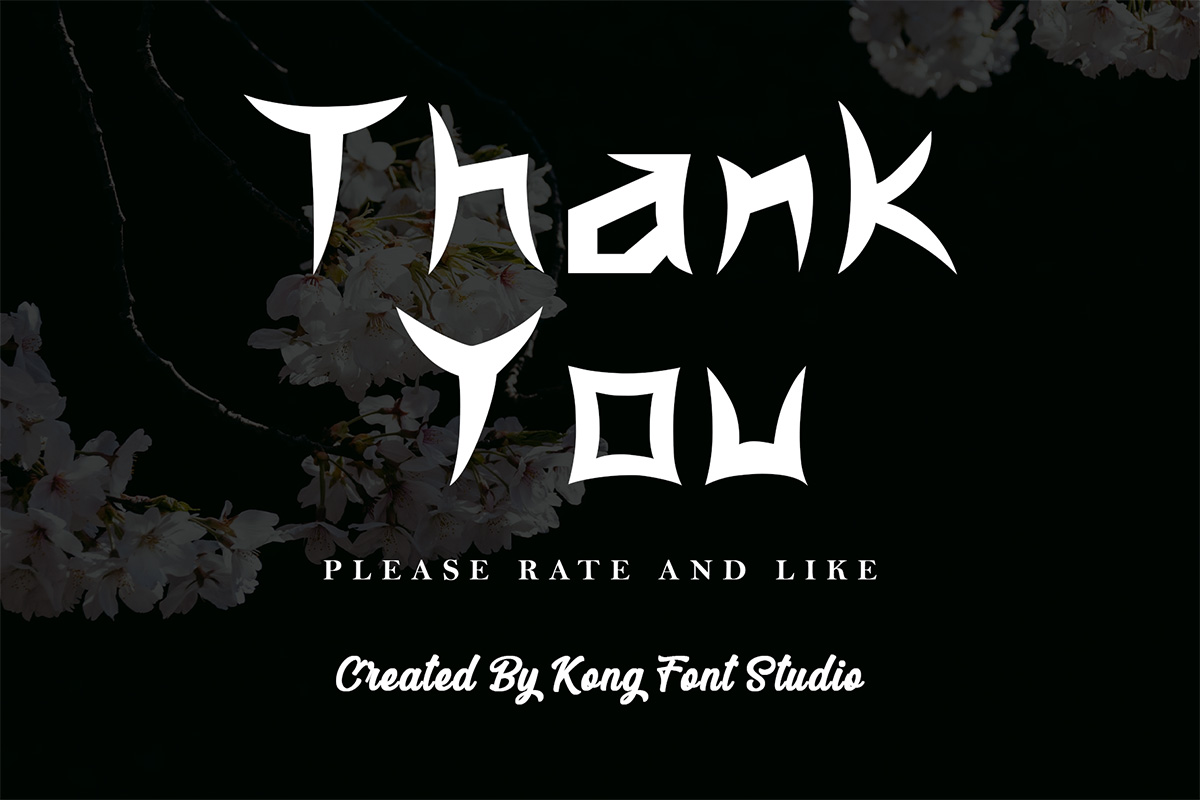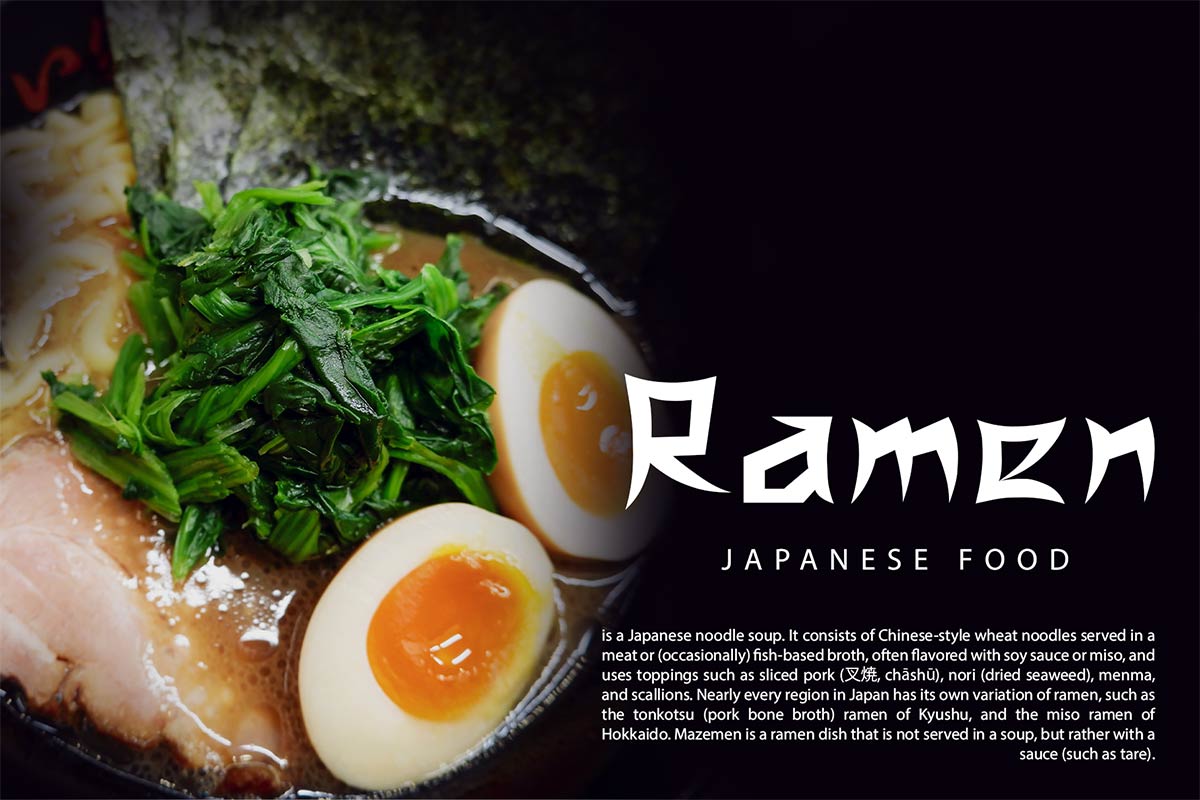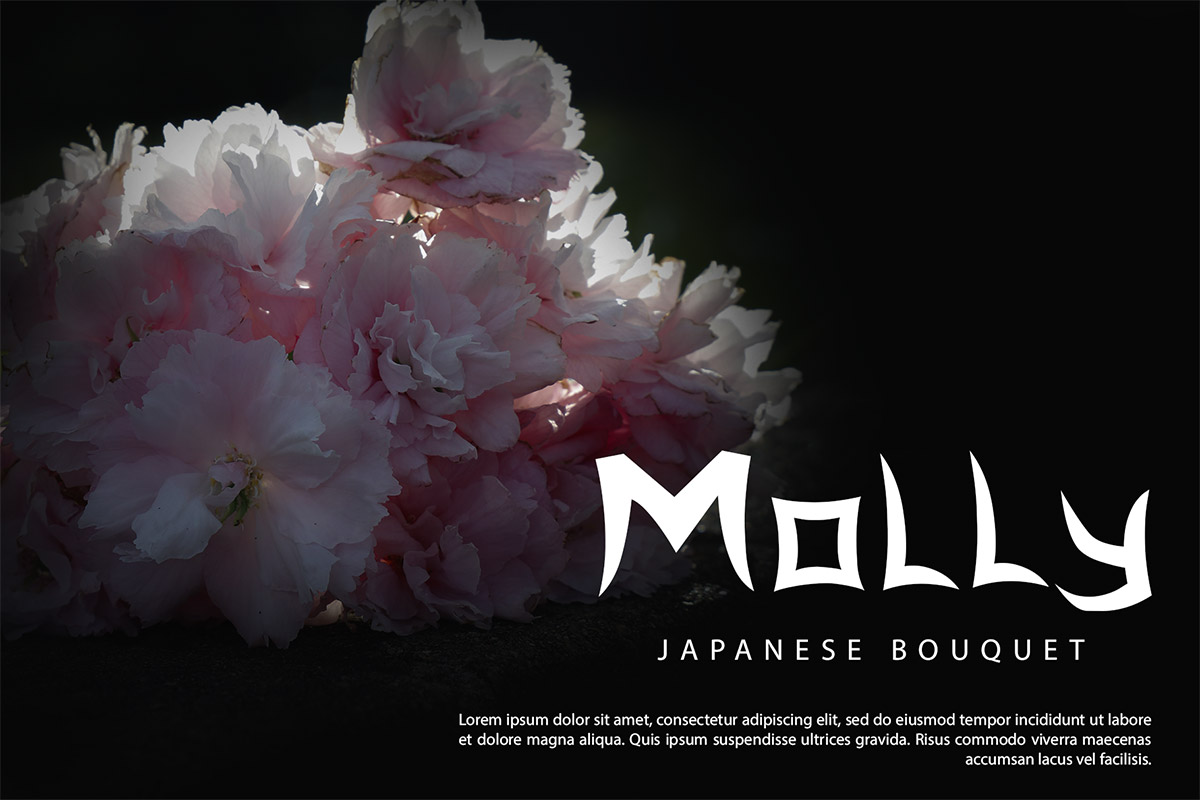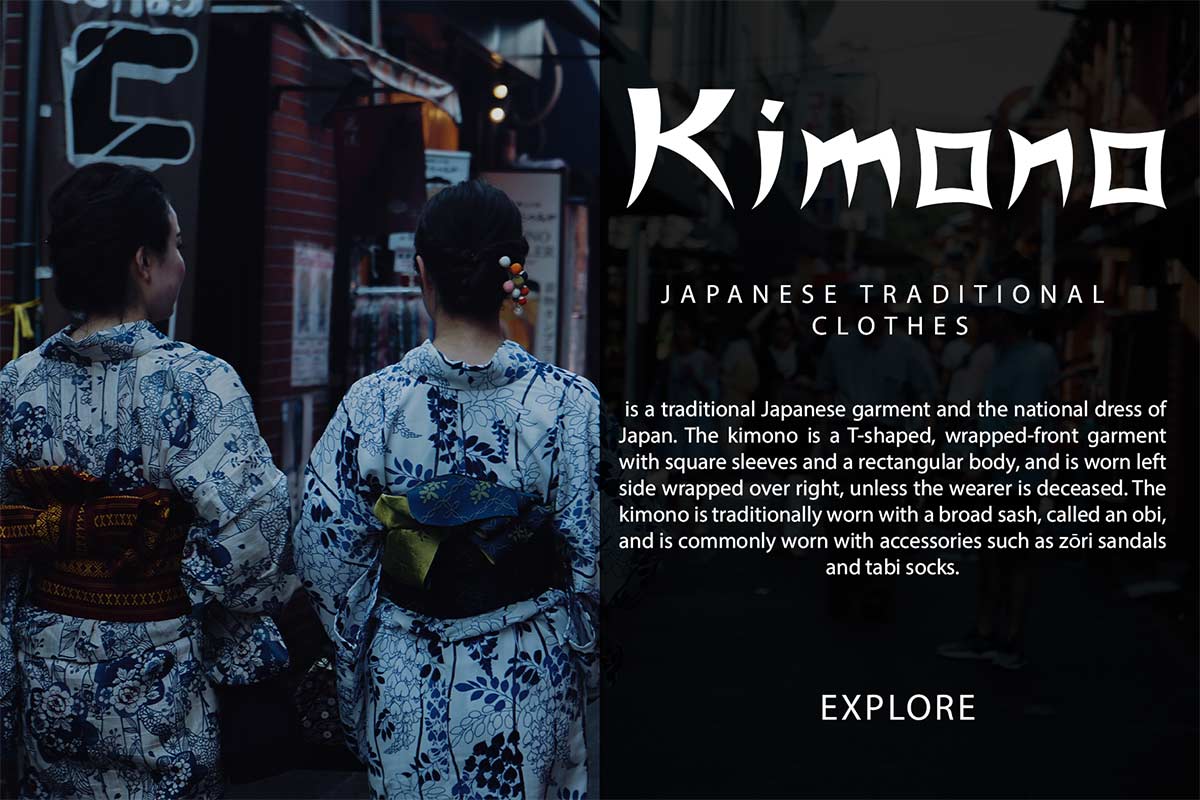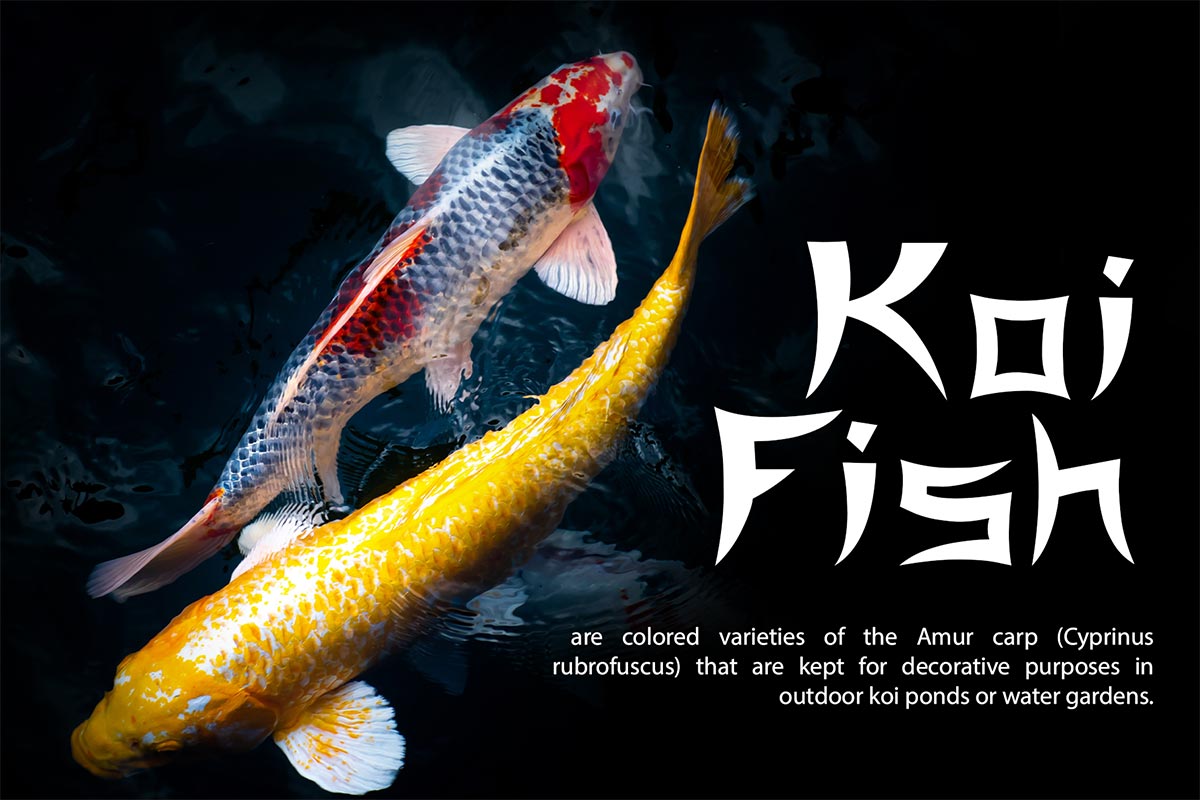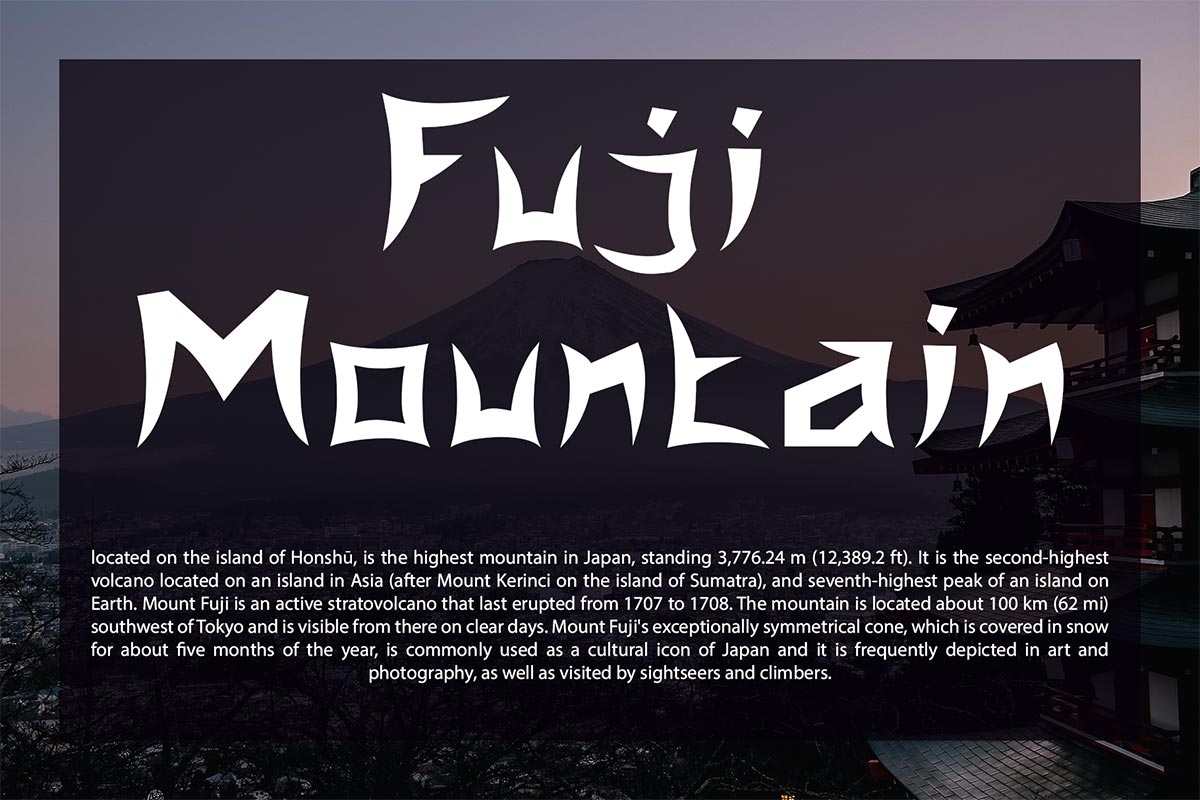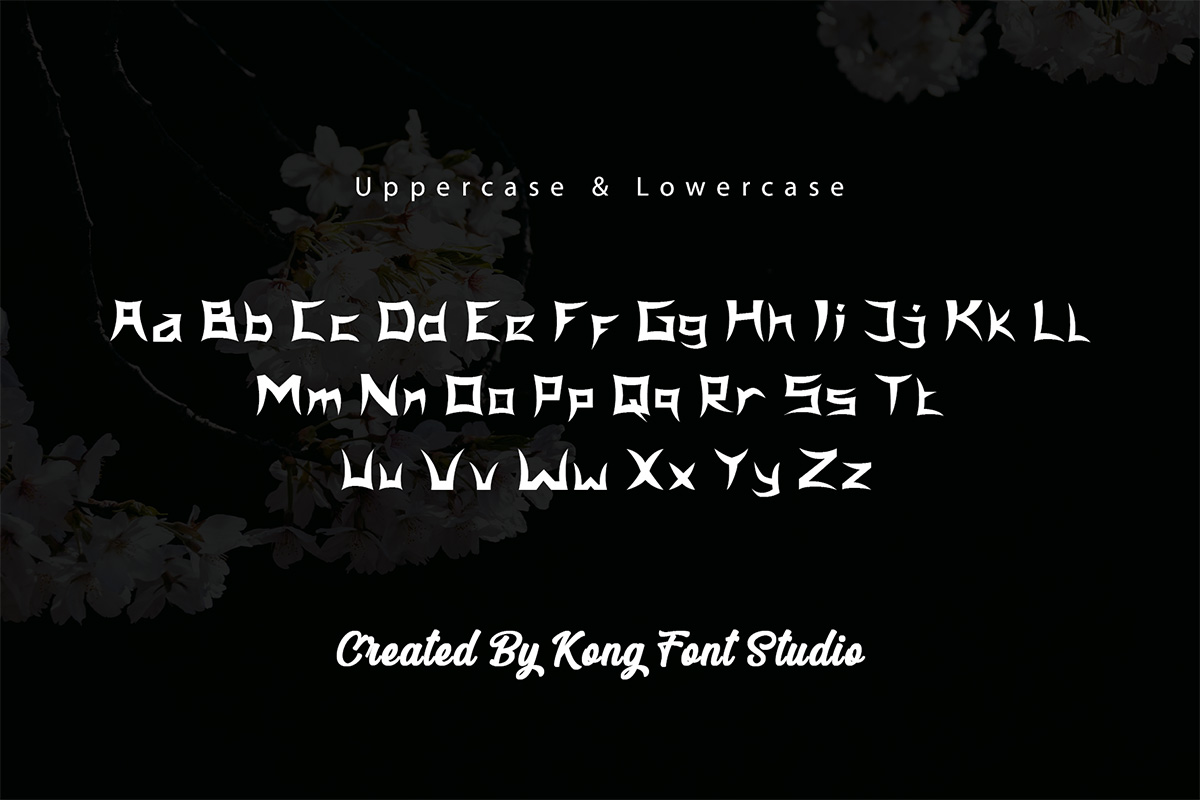
Japanola Asian Arabic Font presents a unique and attractive display of decorative typography. This is a decorative font variation that adheres closely to the Japanese feel and theme. Not only in the form of ordinary letters, but the typeface resembles the shape of actual Japanese letters. Talking about readability, the Japanola Asian Arabic Font is easy to read. You have to look at it carefully to understand it. This font was created to celebrate various celebratory parties. It can use as posters and banners. Welcome party-themed banners and posters for the invitees. Large printed banners with large font sizes will also be the best choice when using this typeface as it will draw everyone's attention to the words you write using this font when you enter a room. You can also use the Japanola Asian Arabic Font in other products, such as; t-shirts, book covers, and branding. This font is suitable for all products with a Japanese theme. It can also use as marketing and packaging advertisements for food products. This font can also use as decoration in places that people often visit, such as; shopping malls, restaurants, and bars. Our display and decorative fonts collection is compatible with uses such as; Figma Fonts, Canva Fonts, Freepik Fonts, and Adobe Fonts. They also work as Windows Fonts and Apple Fonts. For your social media needs, you can use and install fonts in our collection of display and decorative fonts to use as Instagram Fonts, Facebook Fonts, and Twitter Fonts.